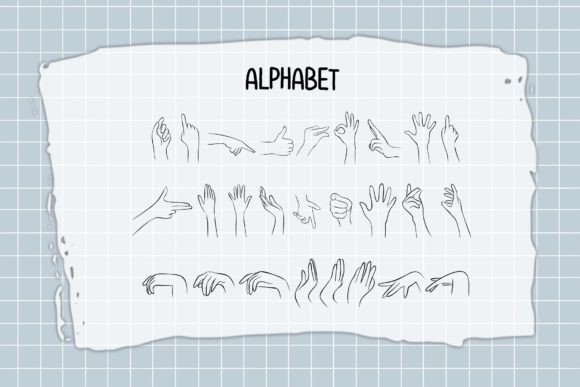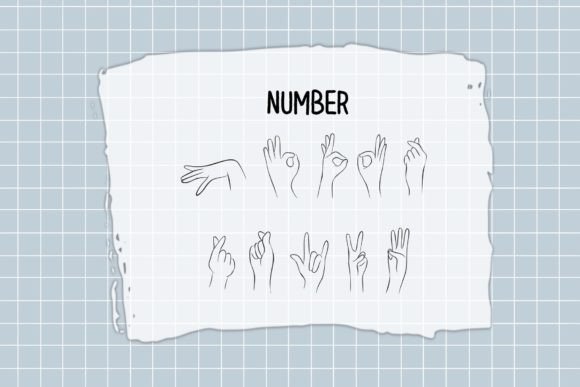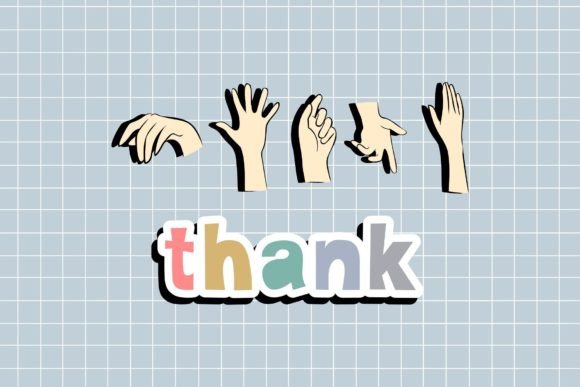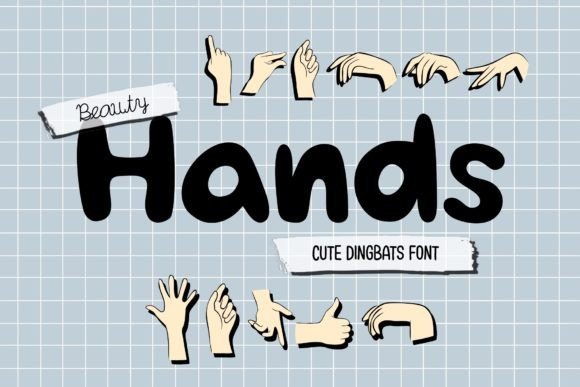
Introduction to Beauty Hands Font
Beauty Hands is a funny dingbats font.
This font is the perfect fit for all of your logos, wall art, signs, cards, art prints, t-shirts, coloring pages, and much more .
Key Features of Beauty Hands Font